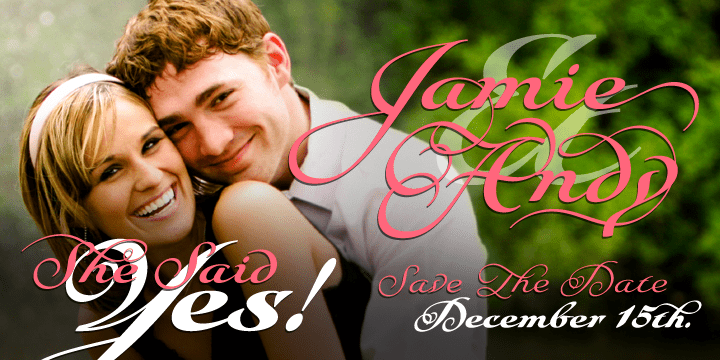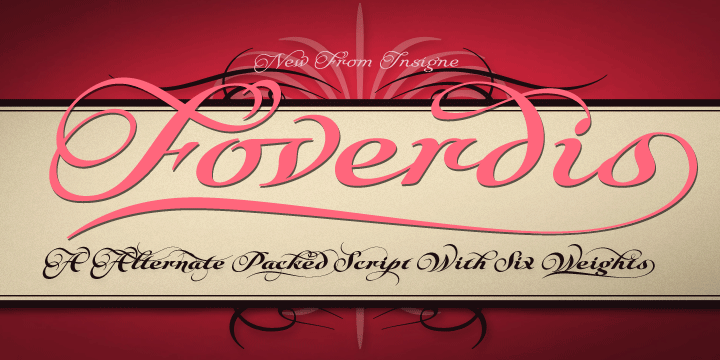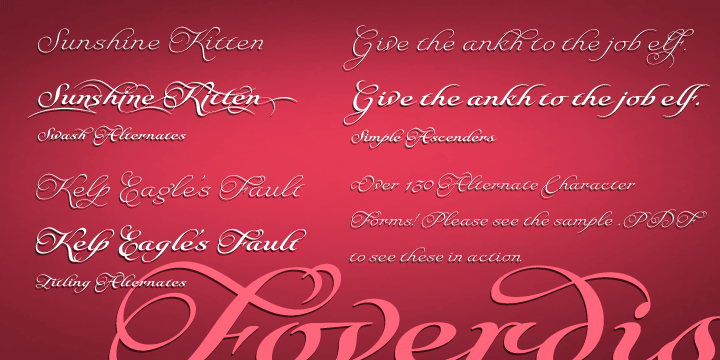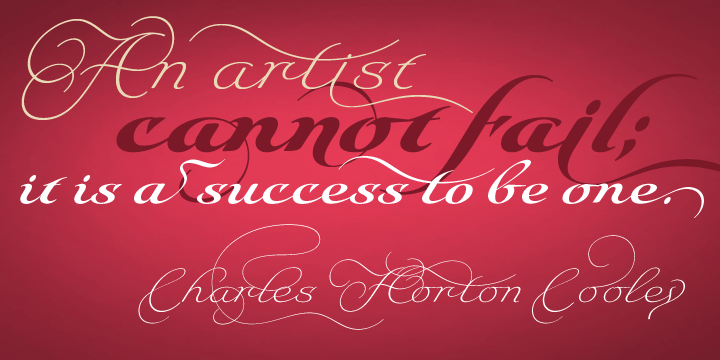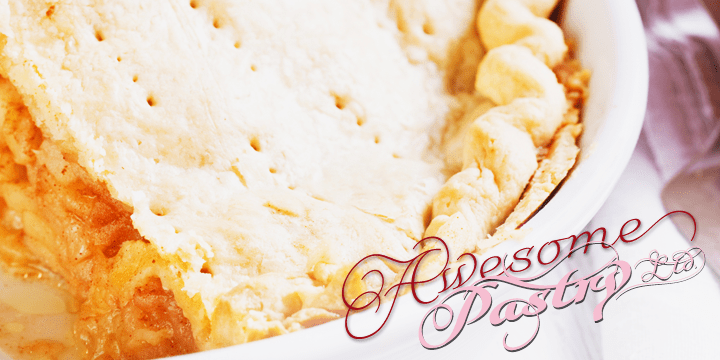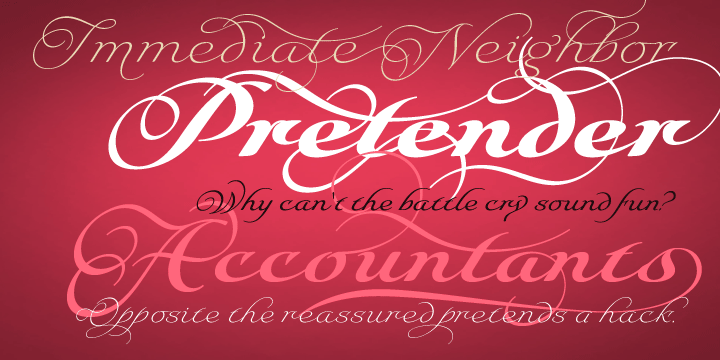
Foverdis
Foverdis is a versatile and powerful ornate script face. Foverdis features flowing hand lettering with tall and graceful ascenders. The face offers a wide array of weights, from the powerful Black weight to the graceful Thin to unique Hairline. Foverdis can get the job done for many unique design tasks. Its wide range of weights at a great price, and OpenType alternates make it a very valuable font for your design toolbox.
Foverdis OpenType features include a set of non-connecting alternates, 20 ligatures, and two types of ending letterforms. OpenType features include ornaments, a full set of swashes, swash endings, ending contextual alternates, discretionary ligatures, ligatures and twelve different stylistic sets filled with alternates. In total, there are over 150 alternate letterforms and ornaments. Please see the sample .pdf to see these features in action.
OpenType capable applications such as Quark or the Adobe suite can take full advantage of the automatically replacing ligatures and alternates. This family also includes the glyphs to support a wide range of languages. Foverdis is great for a professional designer that wants to maximize design capabilities.